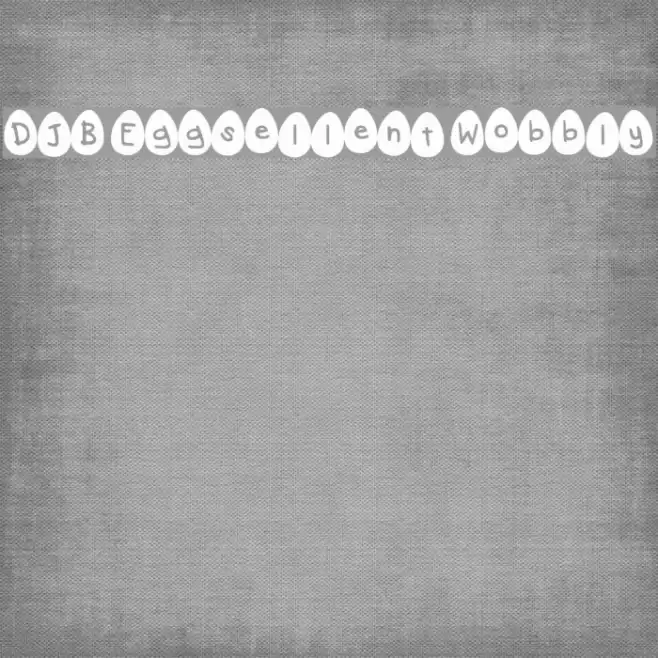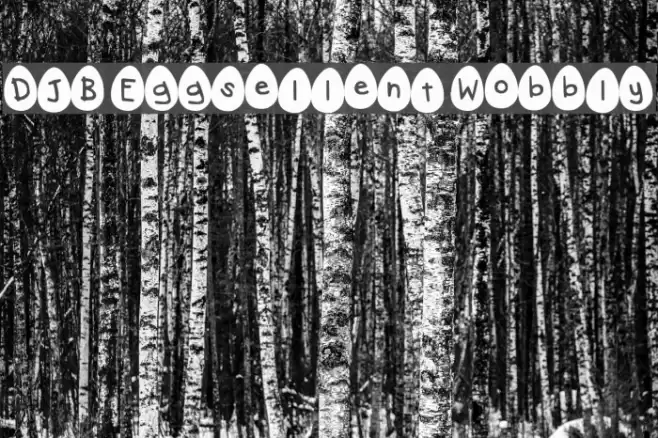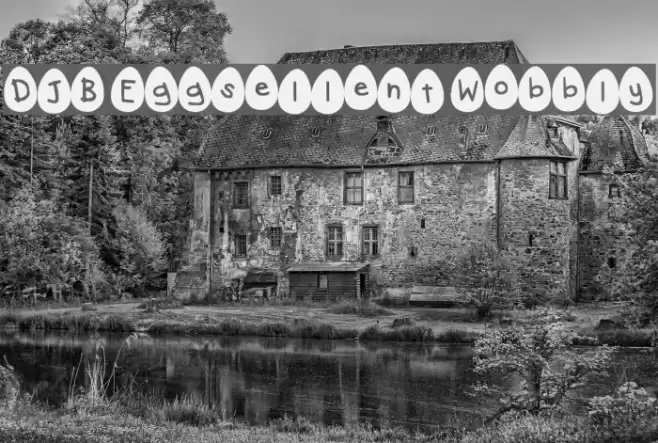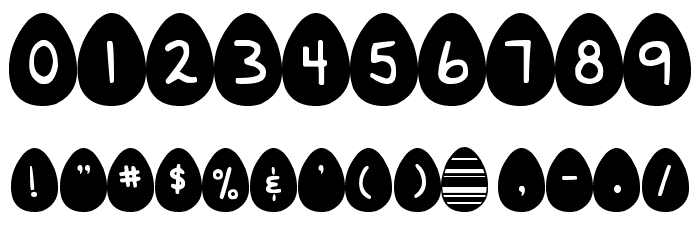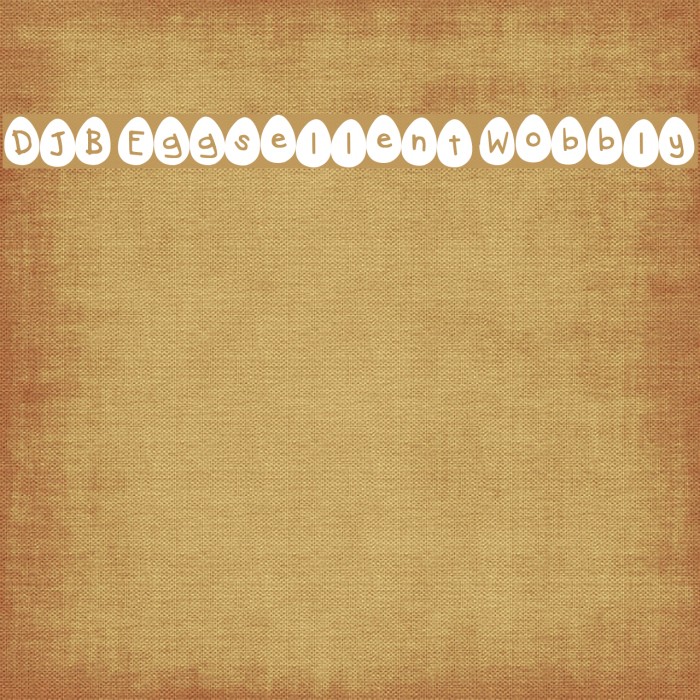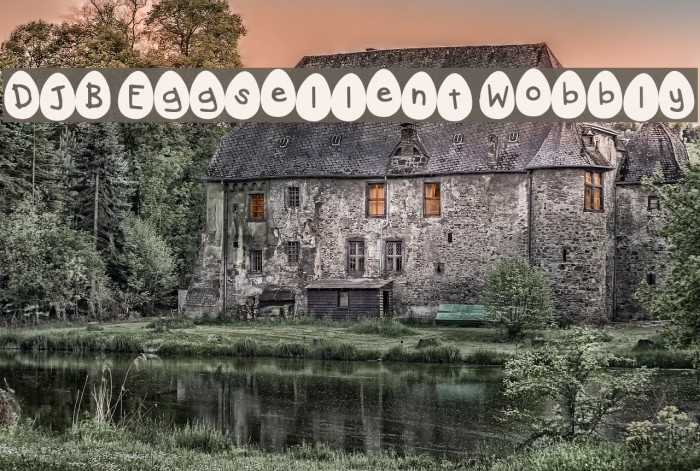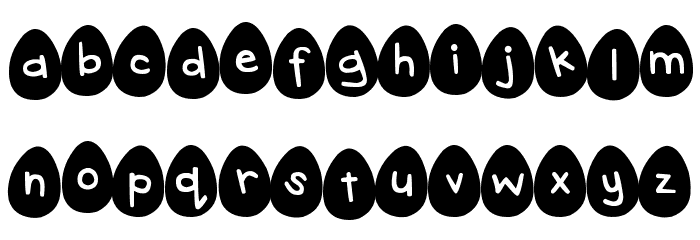
DJB Eggsellent Wobbly Font
DJB Eggsellent Wobbly Description
This playful and quirky font features characters enclosed in egg-shaped outlines, giving it a unique and whimsical appearance. The letters are slightly irregular, contributing to a hand-drawn, casual feel. The uppercase and lowercase letters maintain a consistent style, with rounded edges and a friendly demeanor. Numbers and special characters are included, each fitting neatly within the egg shapes. The overall design is bold and eye-catching, making it suitable for projects that require a fun and informal touch.
A playful, egg-shaped font with a hand-drawn, whimsical style from Uncategorized fonts.
- Proposed Projects: Ideal for children's books, Easter-themed designs, playful branding, and greeting cards.
- Overall Style: Whimsical, Playful